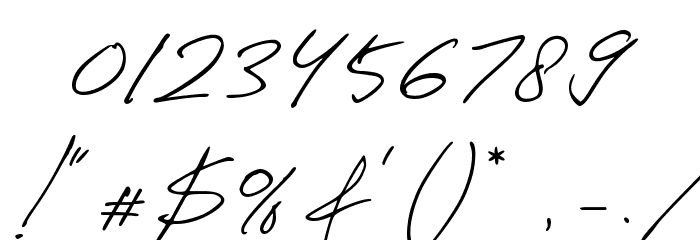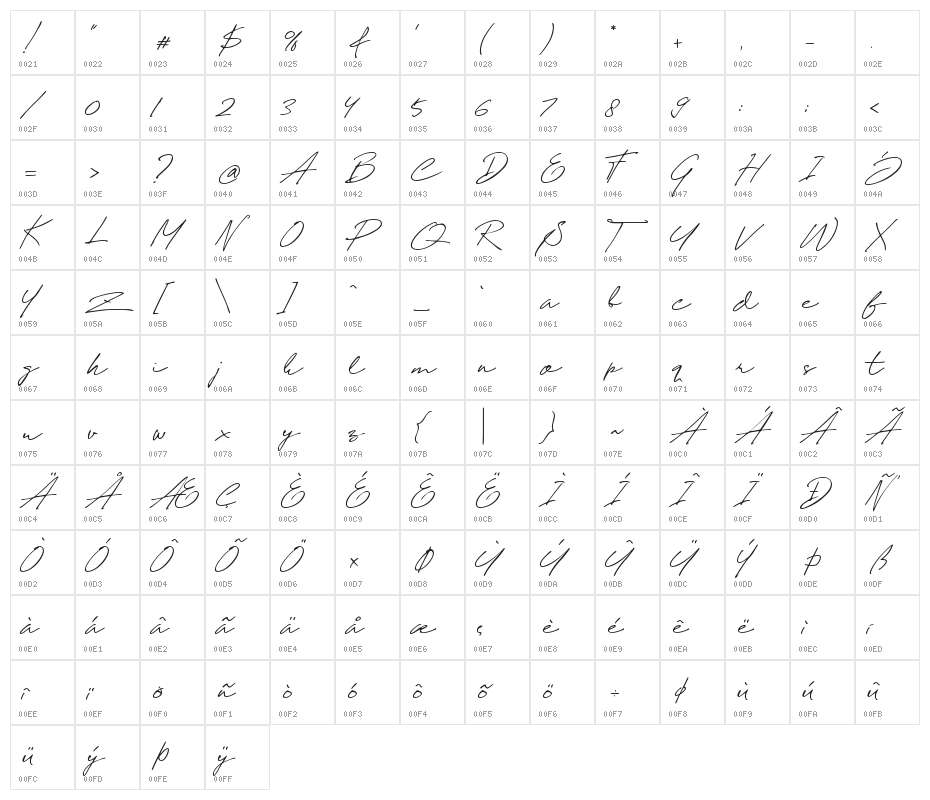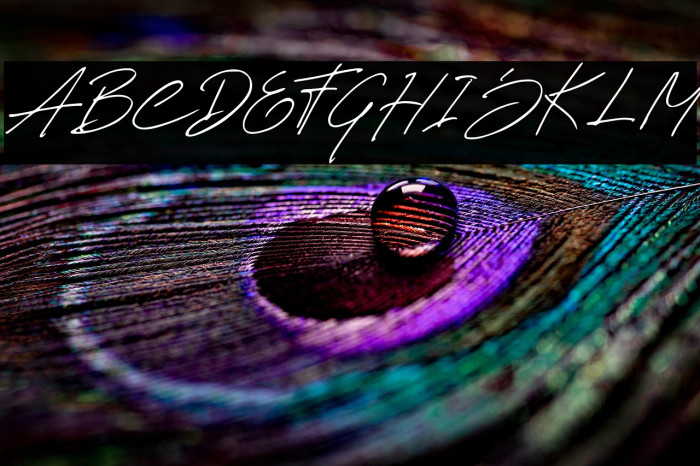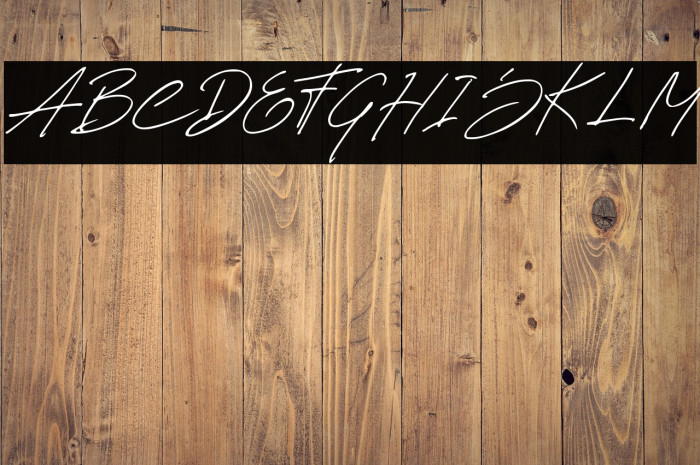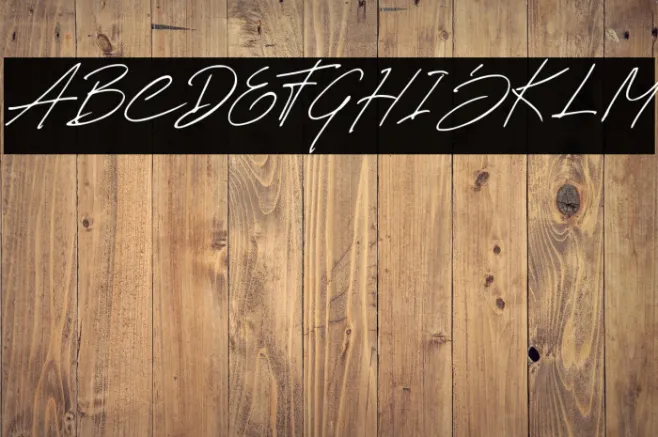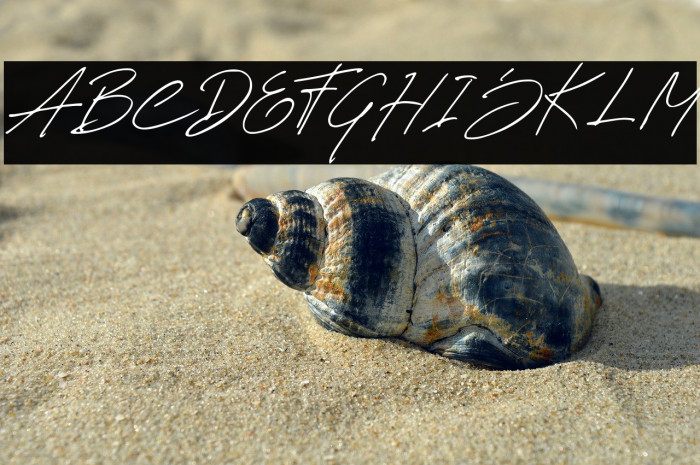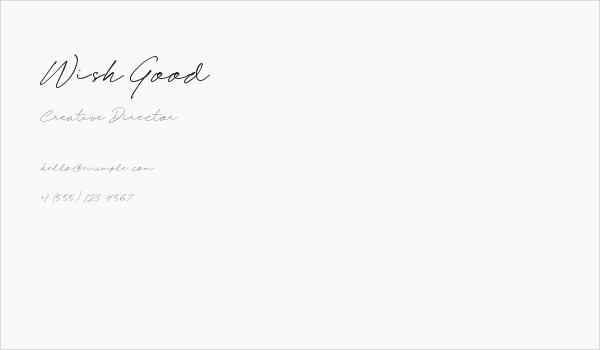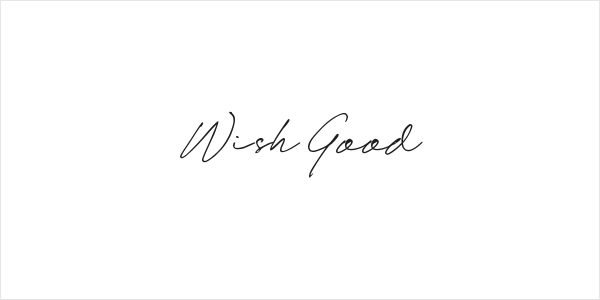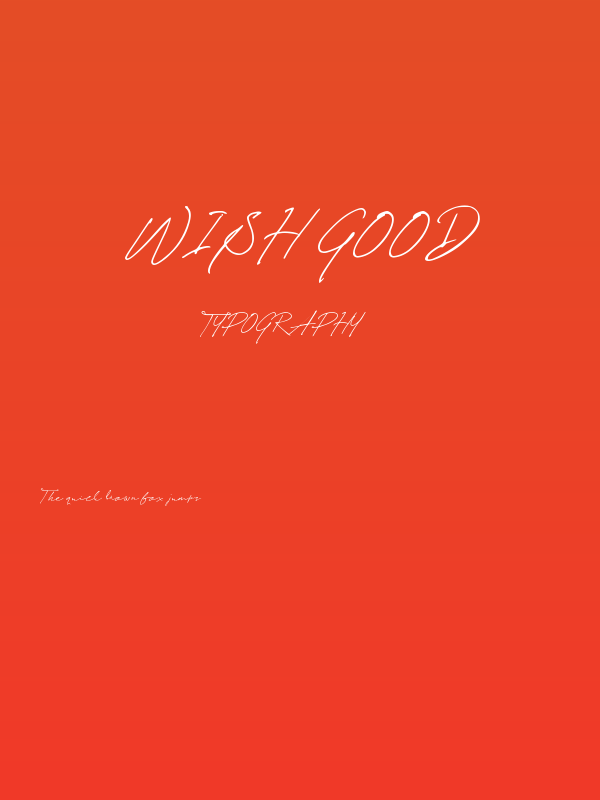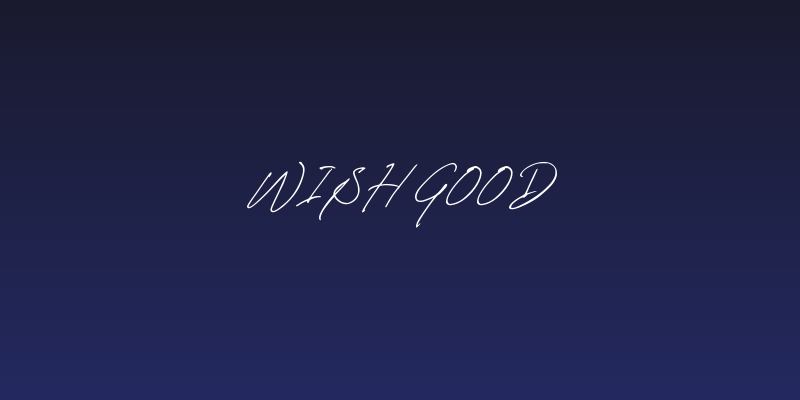
Wish Good Font
Wish Good Description
This font features a fluid and elegant script style, characterized by its smooth, flowing lines and cursive letterforms. The uppercase letters are slightly more elaborate, with sweeping strokes that give a sense of motion and grace. The lowercase letters maintain a consistent flow, enhancing readability while retaining a stylish appearance. Numbers and special characters are crafted with the same attention to detail, ensuring a cohesive look across all elements. The overall design exudes a sense of sophistication and charm, making it suitable for projects that require a personal touch.
| Proposed Projects | Ideal for wedding invitations, greeting cards, personal branding, and elegant packaging designs. |